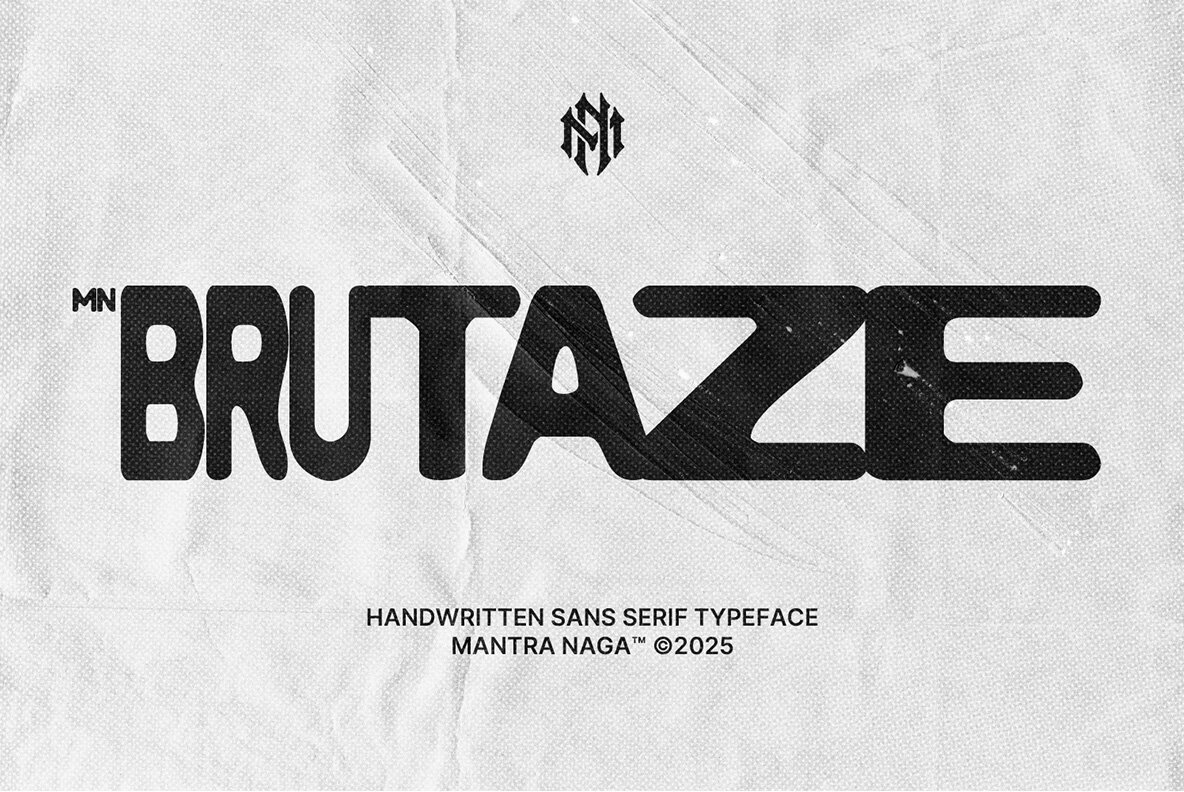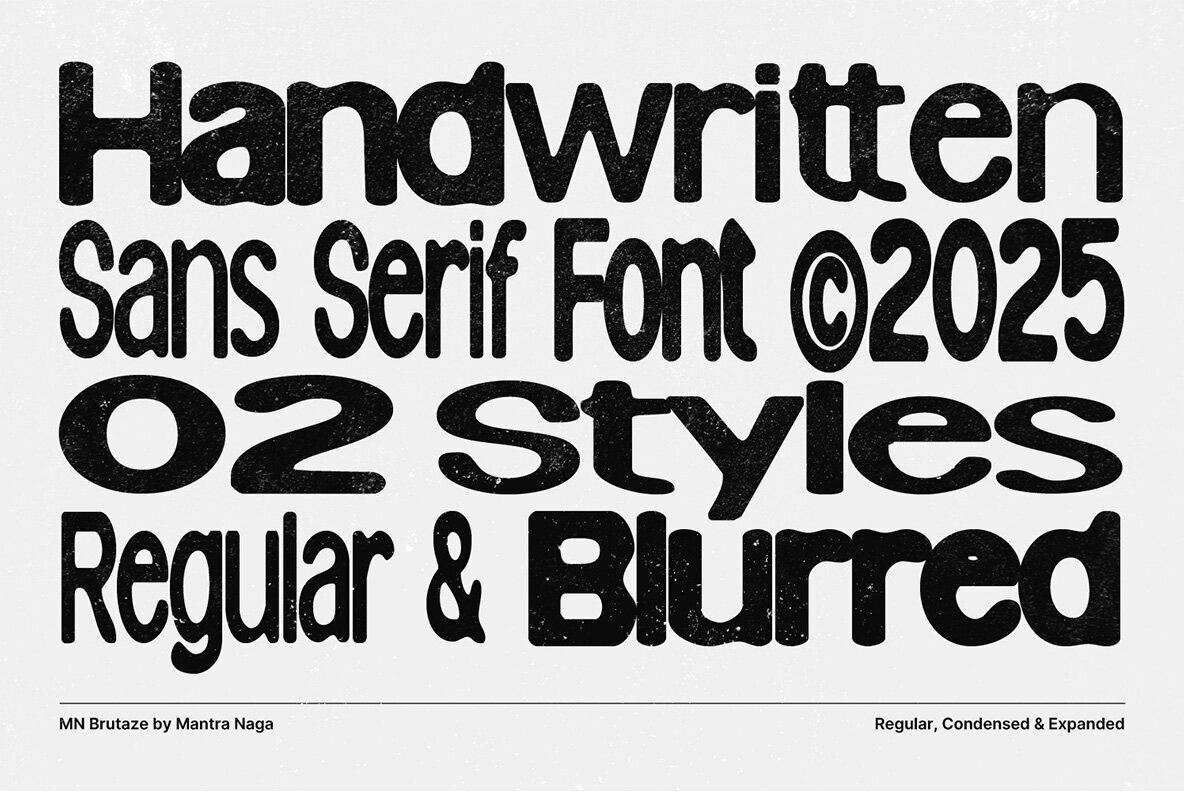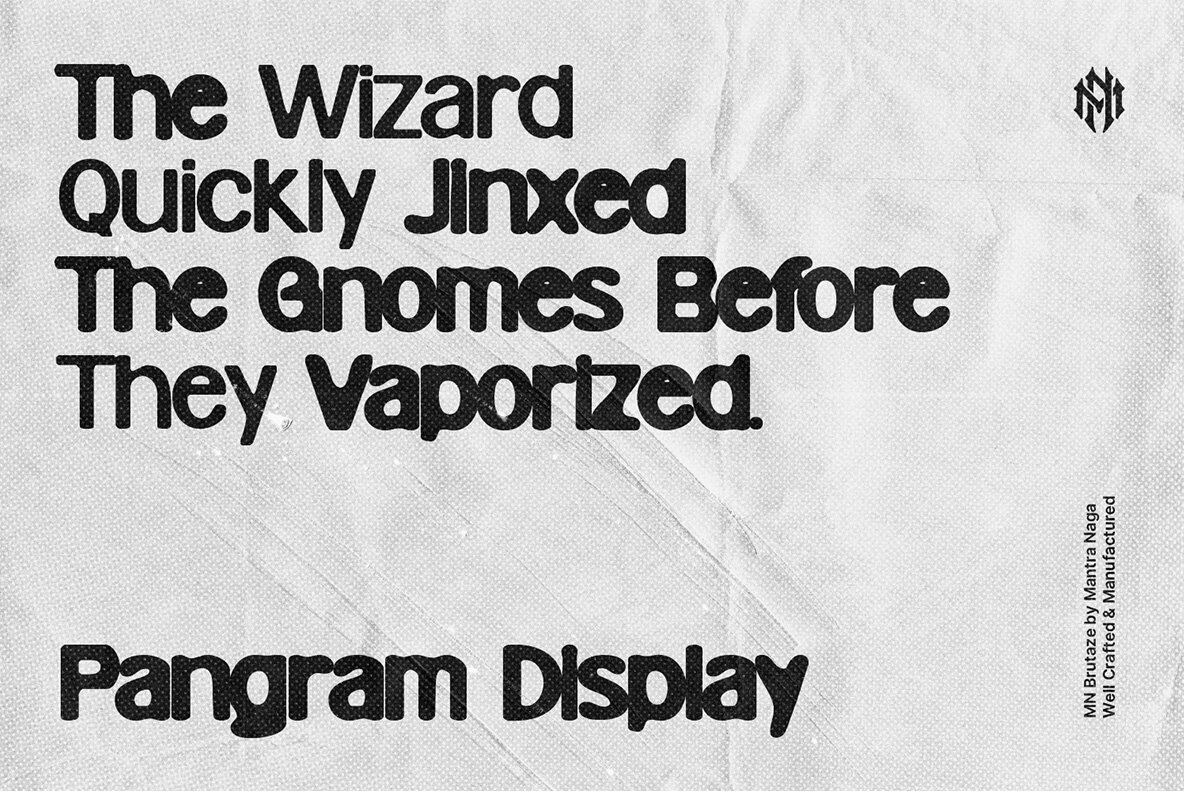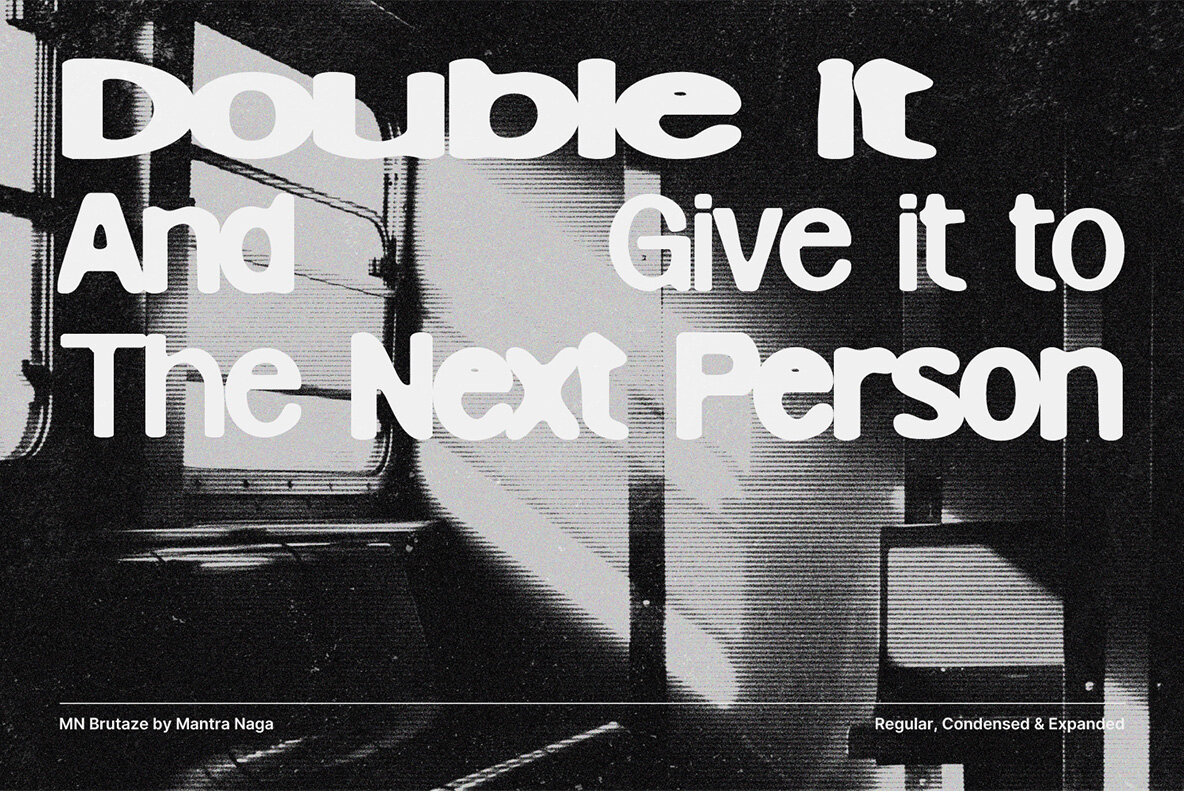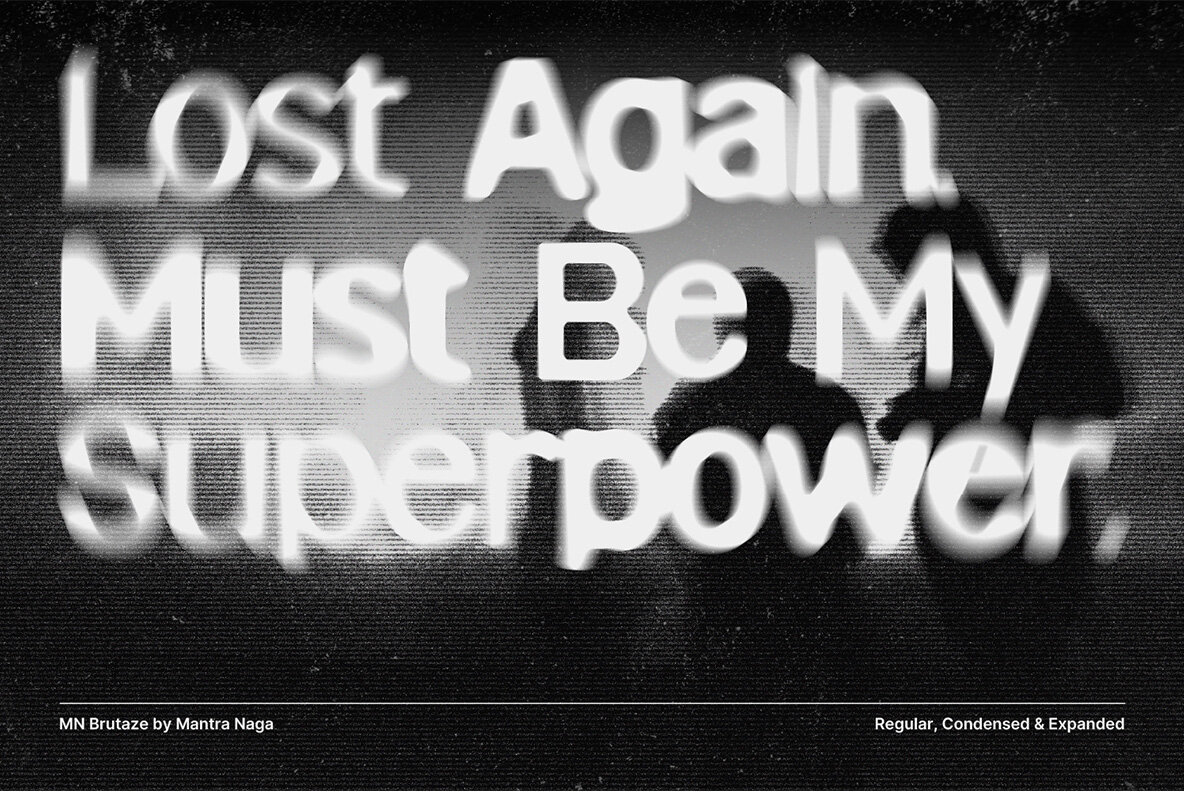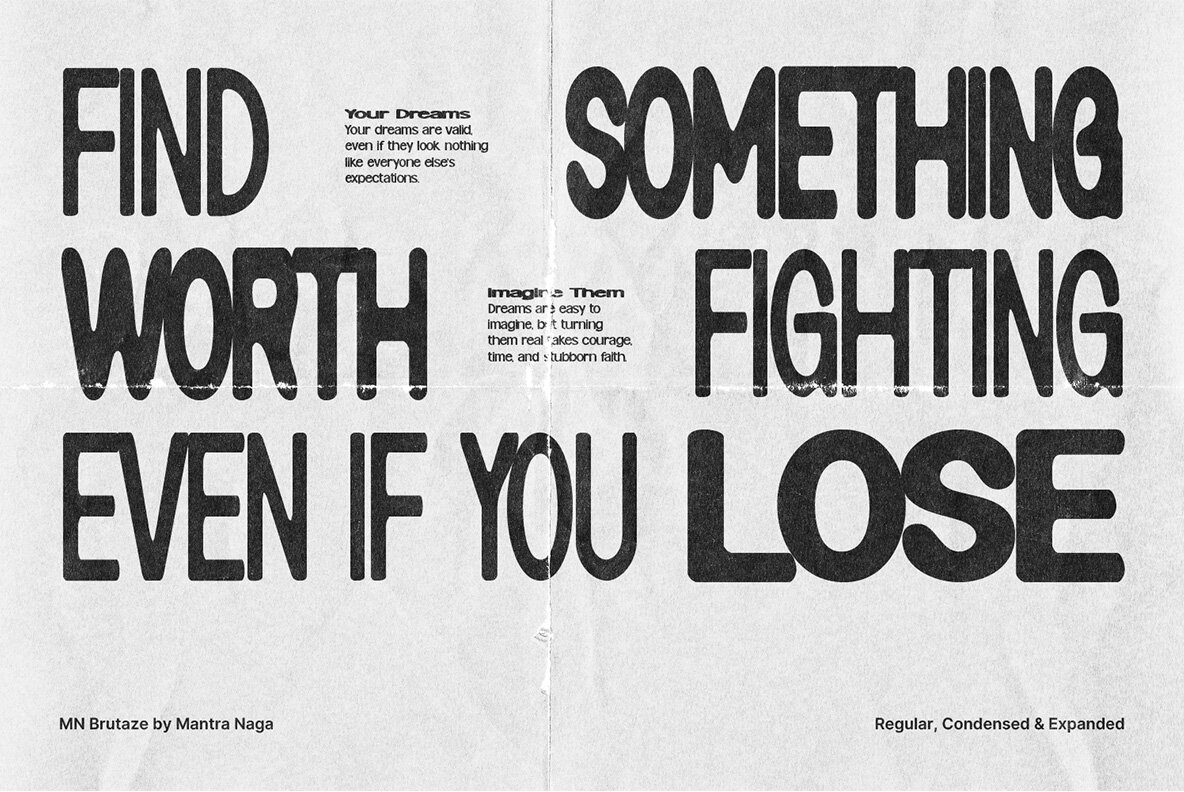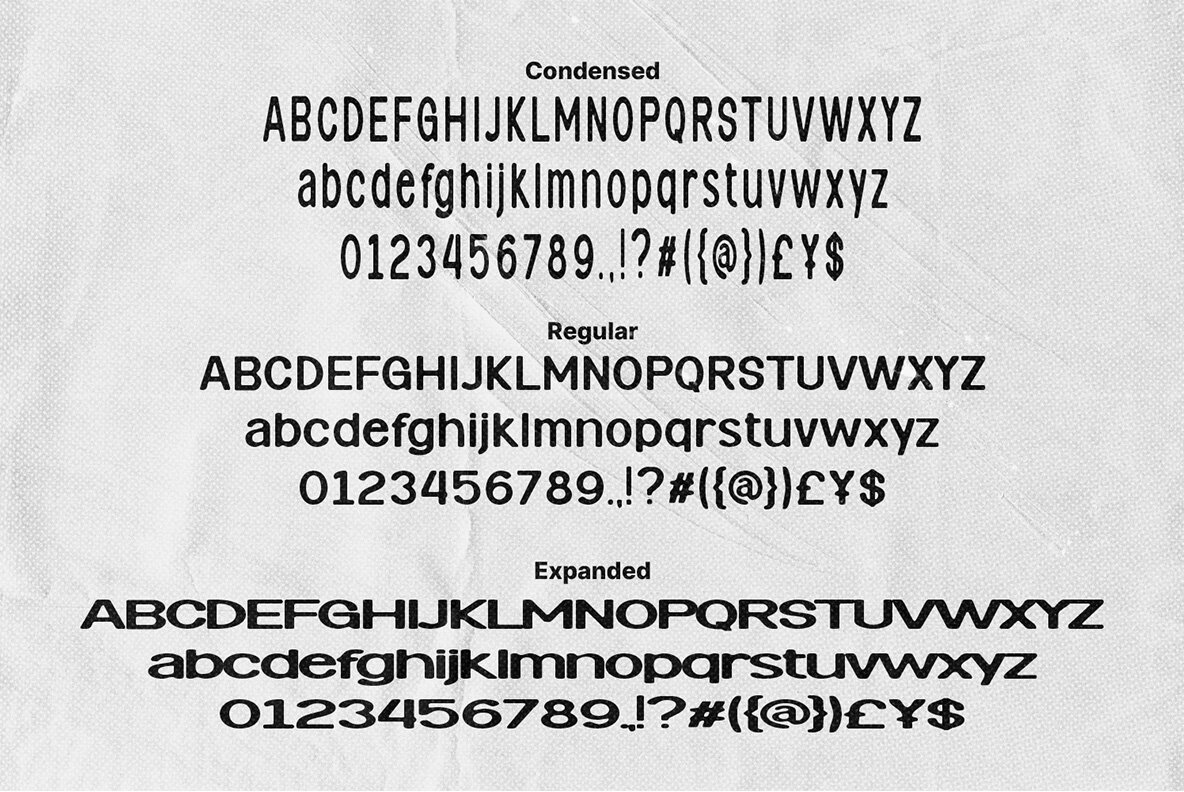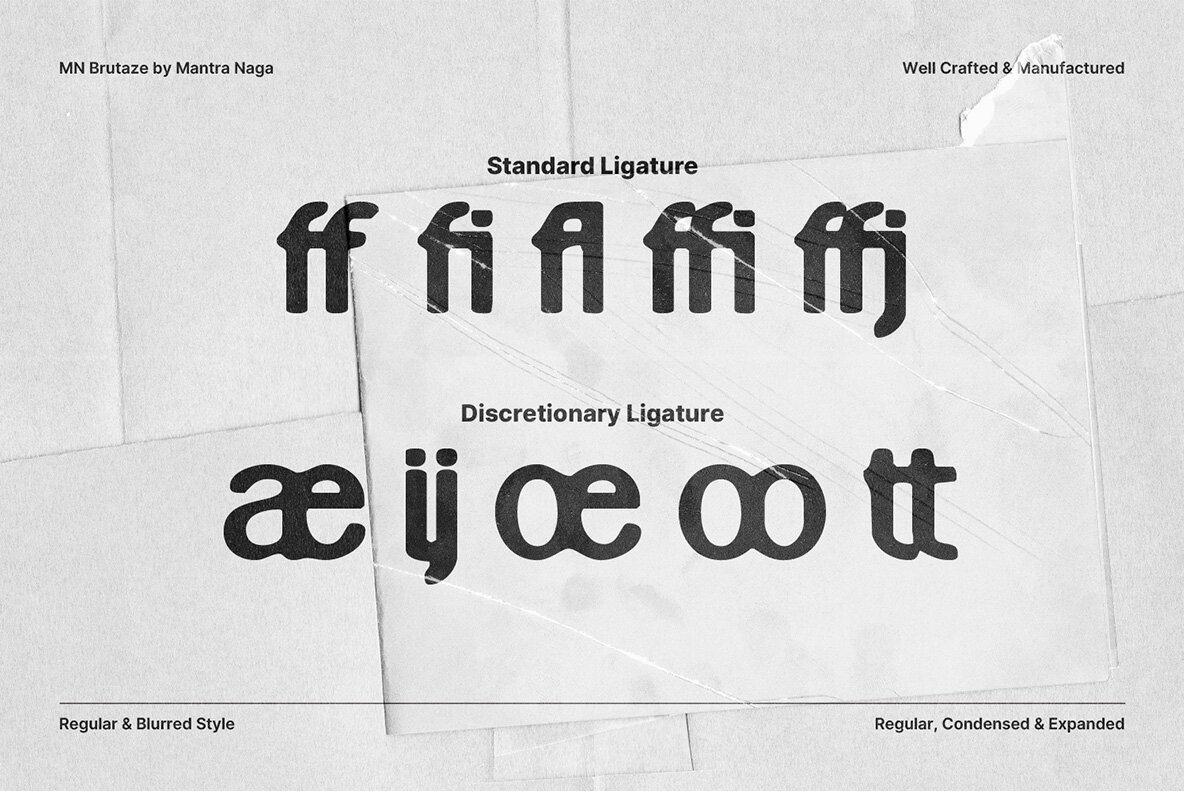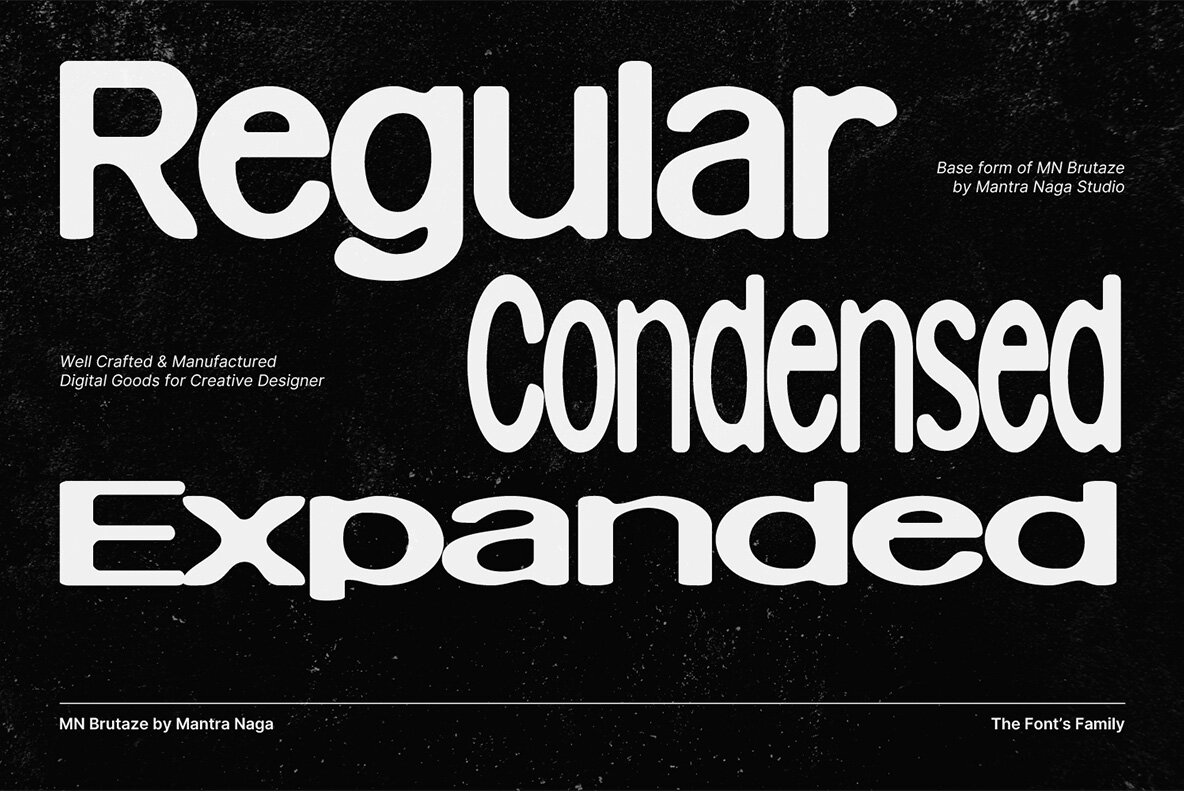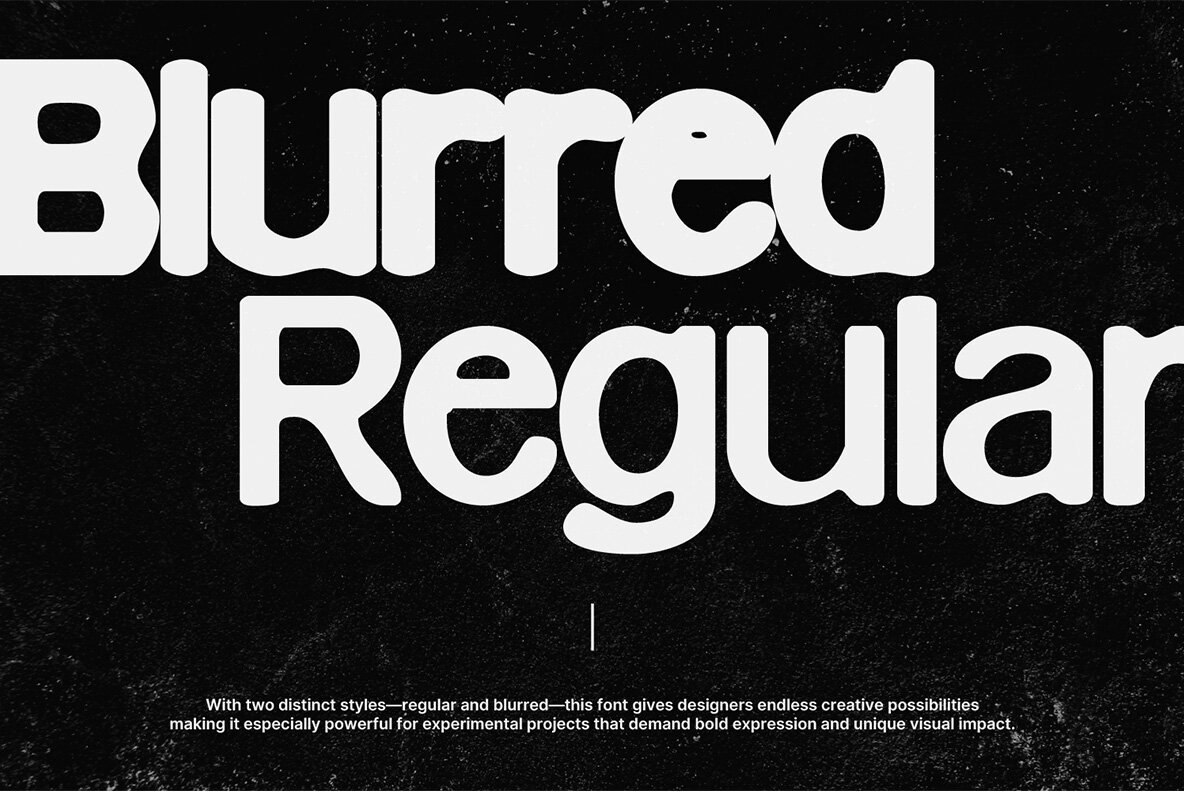
MN Brutaze Font
MN Brutaze Regular
MN Brutaze Blurred
MN Brutaze Condensed
MN Brutaze Condensed Blurred
MN Brutaze Expanded
MN Brutaze Expanded Blurred
MN Brutaze is a unique sans serif typeface that proudly exhibits its deliberate messiness. Born from the fusion of brutalism and hand-drawn irregularities, it captures the essence of raw design. Brutaze is available in two captivating styles: Each style includes three width variations: Condensed, Normal, and Expanded. This versatility makes MN Brutaze ideal for expressive headlines, experimental posters, and bold visual statements. MN Brutaze eschews perfection. It embraces a raw, instinctive quality, crafted for designers who value the beauty of the imperfect.MN Brutaze: Handwritten Sans Serif Embracing Imperfection